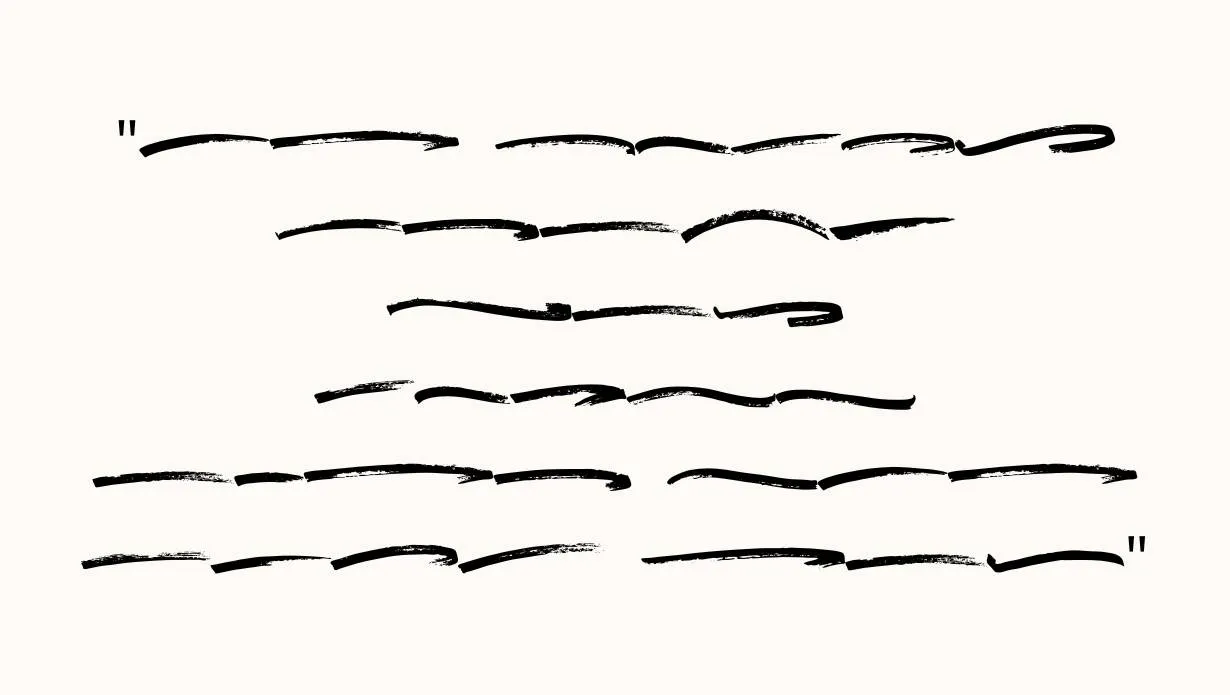
The Mystique Marker font replicates the casual, friendly look of handwritten text created with a marker or pen. Its charming irregularities and relaxed vibe make it a popular choice for various design projects.
| Name | Mystique Marker Font |
| Designer | Kavoon |
This font is often utilized in social media graphics, personal projects, or any content that requires a laid-back, hand-drawn feel. Its natural and approachable appearance adds a sense of authenticity and warmth to the text, providing a genuine and relatable touch to the design.